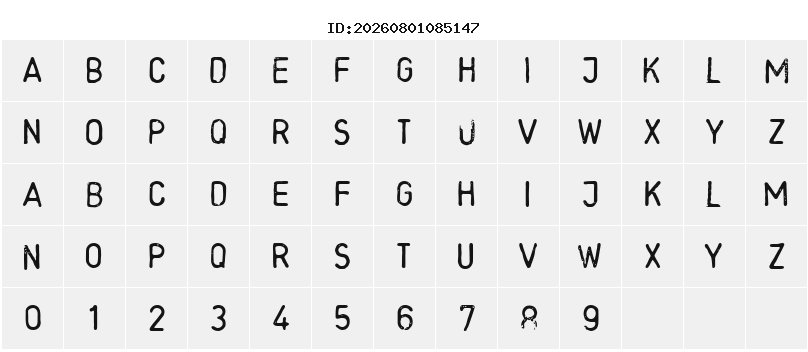
• Font Name: LLRounded
About LLRounded.ttf
LLRounded.ttf is a modern, elegant sans-serif font designed for ultimate readability and visual harmony. Perfect for branding, headlines, web design, and print materials.